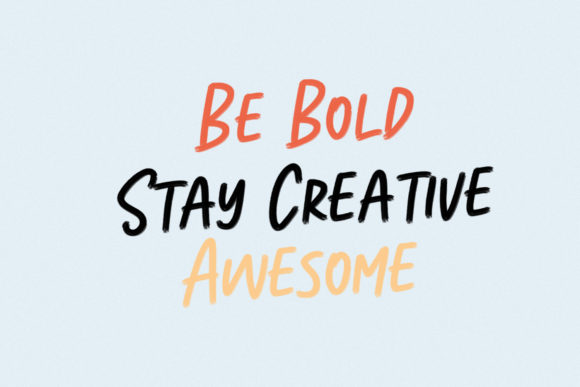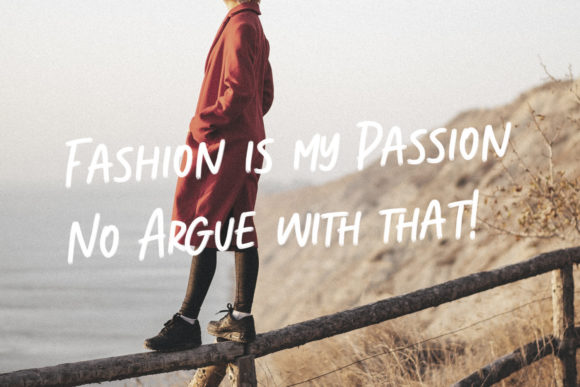
Foxrights Font
db-ku.com - Script & Handwritten -- Foxrights is a cool, simple and brushed handwritten font. Its authentic look and feel will add a personal and realistic feel to your designs.